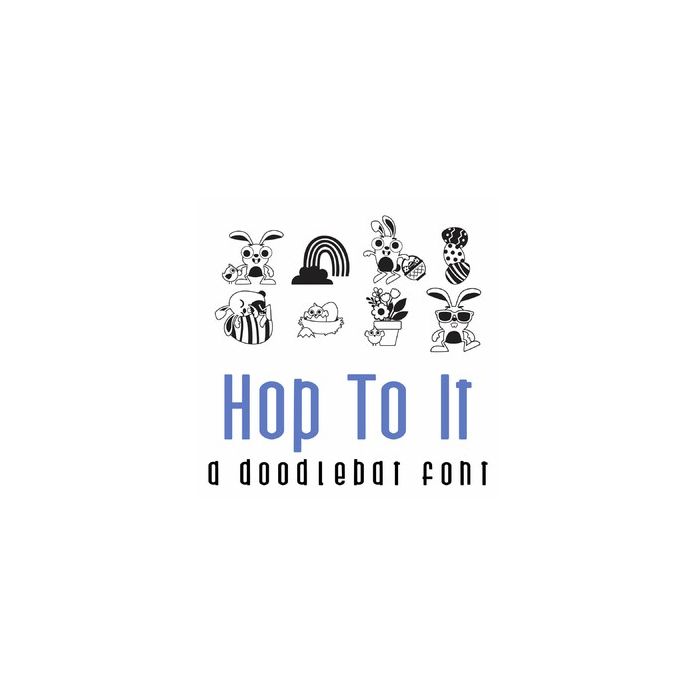
This adorable doodlebat font features 26 fun Easter and Spring themed images. Perfect for cards, crafts, gifts, decor, scrap book pages, planner stickers and more!